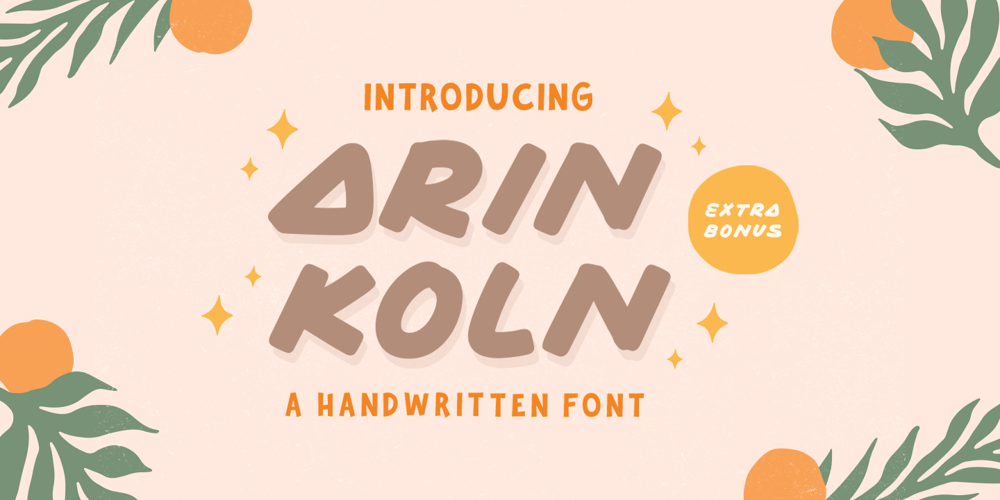
Arinkoln
Arinkoln font
Arinkoln Font Family was designed by Hendry Juanda and published by Letterhend. Arinkoln contains 1 styles and family package options. Arin Koln is a typeface with fun and playful looks. This type of font perfectly made to be applied especially in storybook children or child theme which is need a standout font, and the other various formal forms such as invitations, labels, logos, magazines, books, greeting / wedding cards, packaging, fashion, make up, stationery, novels, labels or any type of advertising purpose.Features : Solid version illustration numbers and punctuation multilingual ligatures PUA encoded We highly recommend using a program that supports OpenType features and Glyphs panels like many of Adobe apps and Corel Draw, so you can see and access all Glyph variations.